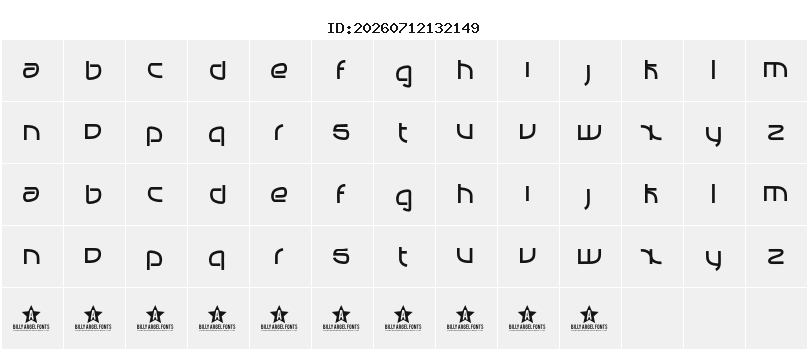
MANABU Preview
• Font Name: MANABU
• Font ID: BillyArgel: MANABU: 2008
• Full Font Name: MANABU
• Version: 13/3/2008
• PostScript Name: MANABU
• Character Count: 73
• Designer: Billy Argel
• Manufacturer: Billy Argel
About MANABU.otf
MANABU.otf is a modern, elegant sans-serif font designed for ultimate readability and visual harmony. Perfect for branding, headlines, web design, and print materials.